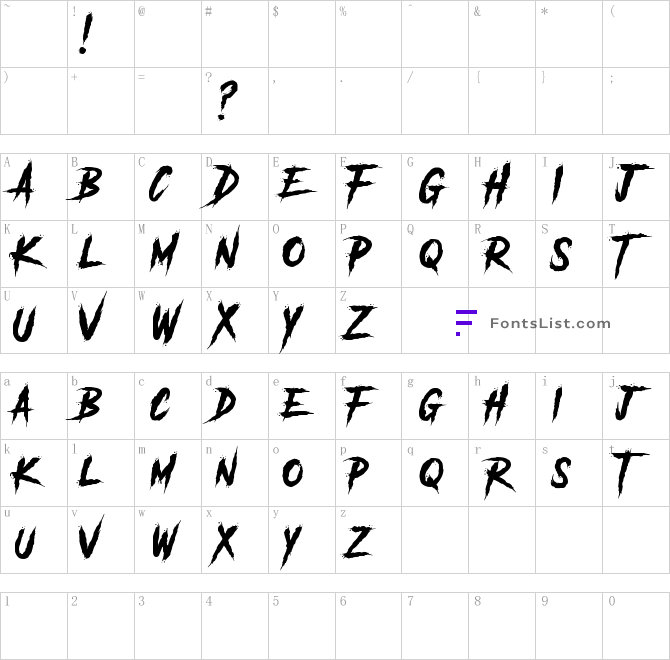
- Font Name:Another Danger - Demo
Another-Danger-Demo.otf is a very beautiful artistic font, Another-Danger-Demo.otf is widely used in the design and printing of various books and pictures,Another-Danger-Demo.otf has a strong visual impact,Another-Danger-Demo.otf is a commonly used font in newspapers, magazines and books, and is used in posters, e-commerce Poster design, store design, logo design, font design and other fields.Another-Danger-Demo.